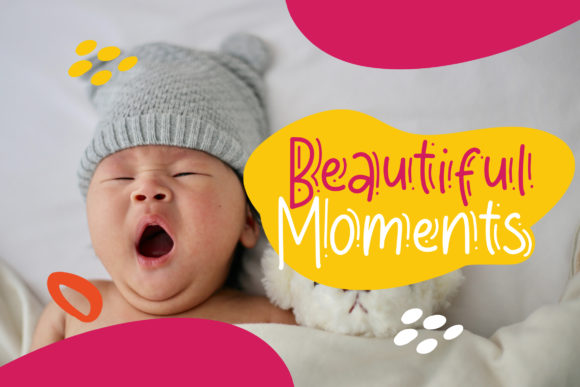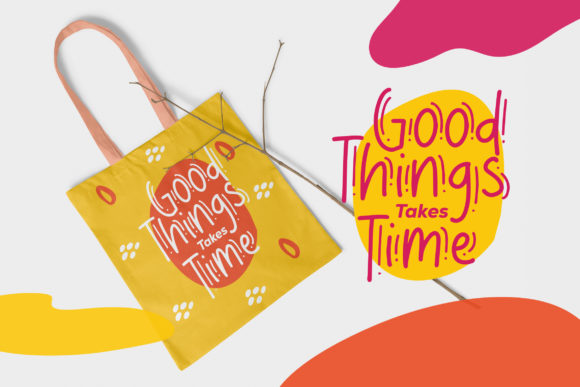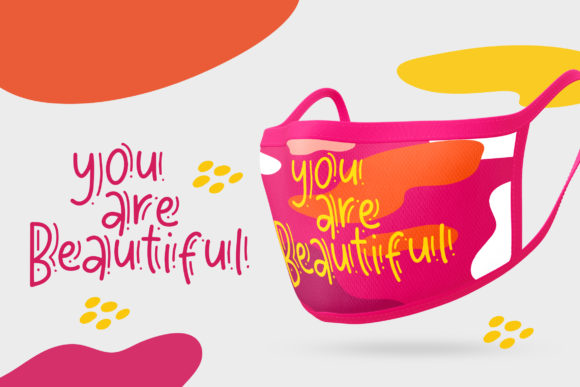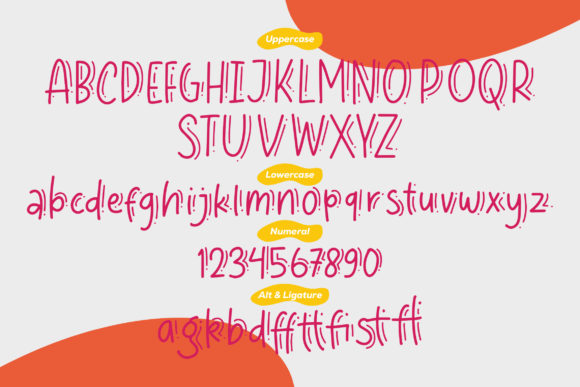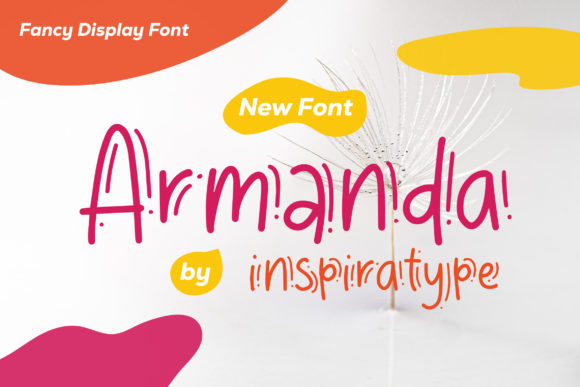
Introducing Armanda Font: A Simple, Cartoon-Like, and Friendly Display Font
Are you a designer or crafter looking for a unique and eye-catching font to add to your creative projects? Look no further than Armanda Font! This simple, cartoon-like, and friendly display font is sure to make an original impact on your creations. With its cute 3D effect, Armanda Font is perfect for a variety of design applications, from digital art to craft projects.
What is Armanda Font?
Armanda Font is a display font designed to add a touch of fun and playfulness to your designs. Its simple and cartoon-like style makes it perfect for projects that require a friendly and approachable feel. The font features a cute 3D effect that gives it a unique and eye-catching appearance. Whether you’re working on a digital project or a craft, Armanda Font is sure to add a pop of personality to your design.
Key Features of Armanda Font
- Simple and Cartoon-Like Style: Armanda Font has a simple and cartoon-like style that makes it perfect for projects that require a friendly and approachable feel.
- Cute 3D Effect: The font features a cute 3D effect that gives it a unique and eye-catching appearance.
- Display Font: Armanda Font is a display font designed for use in titles, headings, and other display text.
- Easy to Read: Despite its playful style, Armanda Font is easy to read, making it perfect for use in a variety of design applications.
Uses for Armanda Font
Armanda Font is a versatile font that can be used in a variety of design applications, including:
- Digital Art: Add a touch of personality to your digital art with Armanda Font. Use it to create eye-catching titles, headings, and other display text.
- Craft Projects: Armanda Font is perfect for craft projects, such as scrapbooking, card making, and other paper crafts.
- Signs and Banners: Use Armanda Font to create eye-catching signs and banners for parties, events, and other occasions.
- Social Media Graphics: Add a touch of personality to your social media graphics with Armanda Font. Use it to create eye-catching titles, headings, and other display text.
Tips for Using Armanda Font
Here are a few tips for using Armanda Font in your designs:
- Use it as a Display Font: Armanda Font is designed for use as a display font, so use it to add emphasis to titles, headings, and other display text.
- Pair it with Other Fonts: Armanda Font pairs well with other fonts, so don’t be afraid to experiment with different font combinations.
- Experiment with Colors: Armanda Font looks great in a variety of colors, so experiment with different colors to find the one that works best for your design.
Armanda Font is a simple, cartoon-like, and friendly display font that’s perfect for designers and crafters looking to add a touch of personality to their creations. With its cute 3D effect and easy-to-read style, Armanda Font is sure to make an original impact on your designs. Whether you’re working on a digital project or a craft, Armanda Font is a great choice for adding a pop of personality to your design.